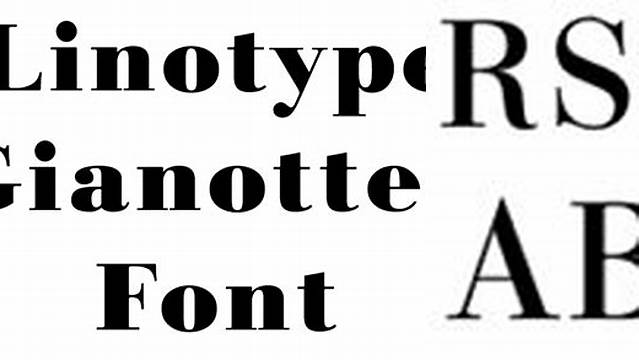
Unveiling the Elegance of Linotype Gianotten Font
Linotype Gianotten is more than just a font; it's a statement. It's a blend of elegance, readability, and subtle character that makes it a favorite among designers. Before we dive into the specifics of a free download and usage, let's appreciate what makes this font so special. The Gianotten font, with its refined curves and balanced proportions, embodies a timeless aesthetic. Its design ensures that it is readable, versatile, and can be used for various design projects. The font’s design is neither overly modern nor overly traditional. It occupies a sweet spot, making it suitable for diverse applications, from branding to editorial design. This font is known for its clean lines and legibility. Gianotten’s design considers the viewer’s eye, providing a smooth and pleasant reading experience. The versatility of the Gianotten font makes it suitable for various design contexts. It can be used for headlines, body text, or even display text, providing designers with a reliable tool that performs well across different scenarios. The design of the Gianotten font is characterized by its harmony and balance. The forms of the letters are carefully crafted to create a harmonious whole that is pleasing to the eye. The overall effect is professional and sophisticated. Gianotten's elegant design makes it perfect for branding materials. It provides a sophisticated touch to logos, business cards, and other brand elements, helping to create a strong and memorable brand identity. The font works very well in the editorial content. Its clarity and legibility make it ideal for magazines, books, and other printed materials where readability is paramount. The Gianotten font is also suitable for digital environments, including websites and digital publications. Its excellent legibility translates well to screens of different sizes and resolutions, providing a consistent reading experience. It's not just about the aesthetic appeal; the functionality of a font like Gianotten is crucial. Its versatility and readability make it a practical choice for various projects, enhancing the overall impact and effectiveness of your designs. Its timelessness ensures that your designs won't feel dated quickly. Using a font like Gianotten is a statement. It showcases attention to detail and a commitment to quality. It shows a high level of design, making it the perfect selection to deliver a good visual impact.